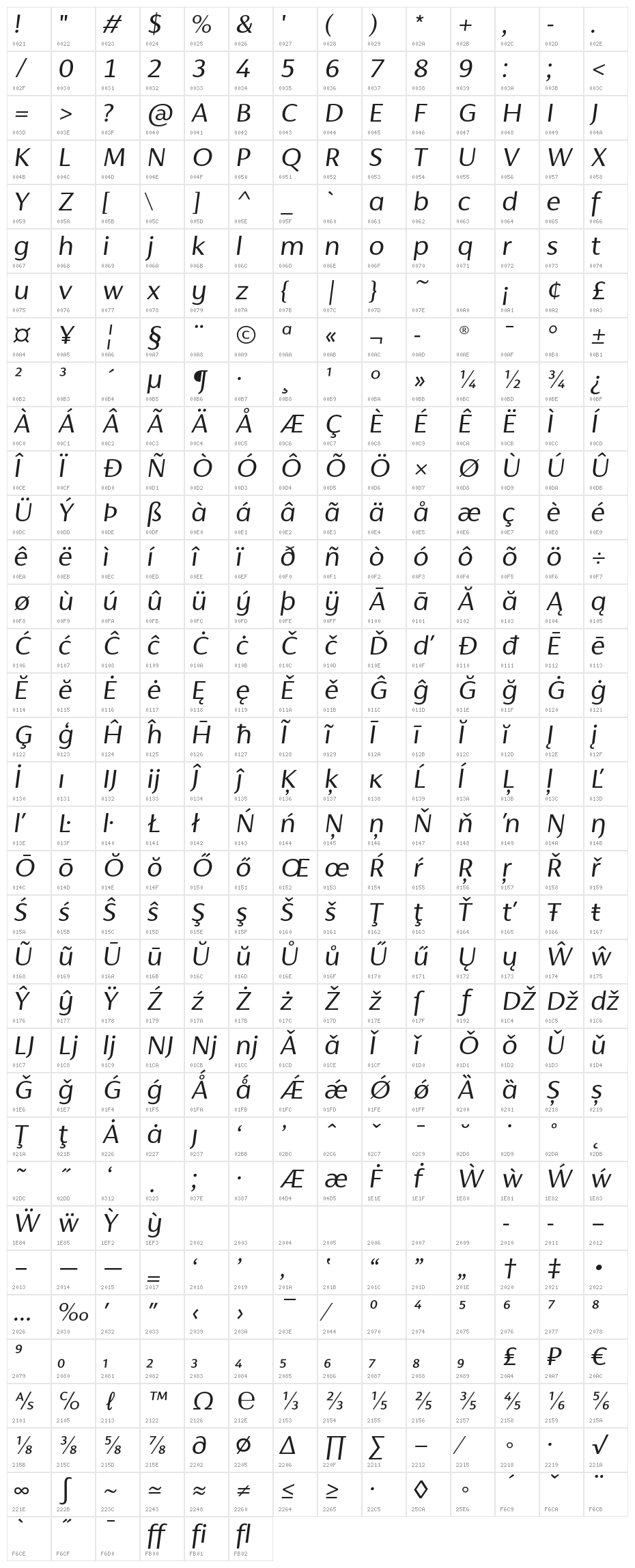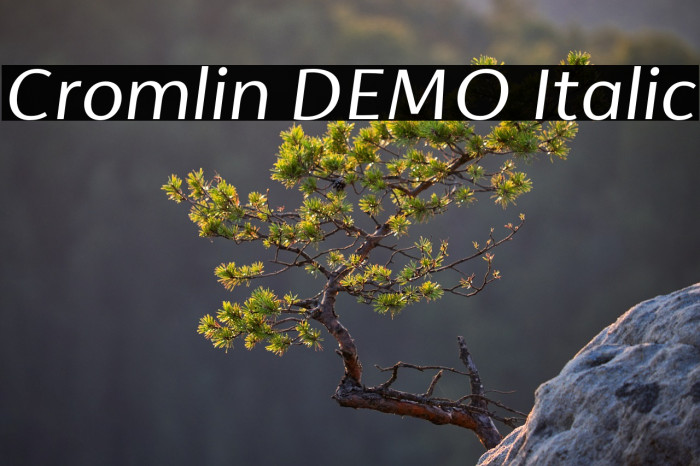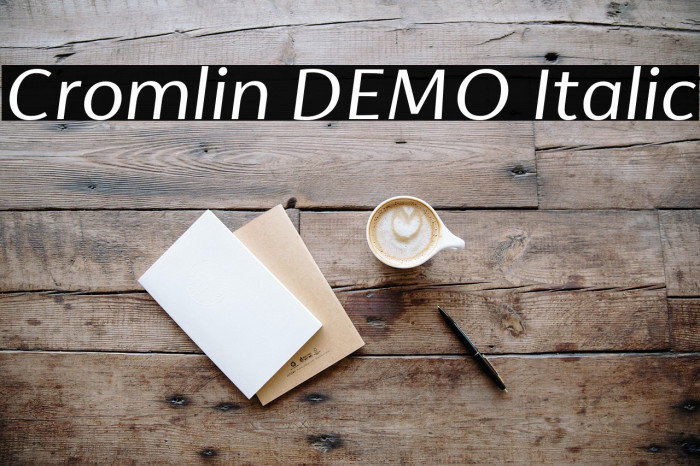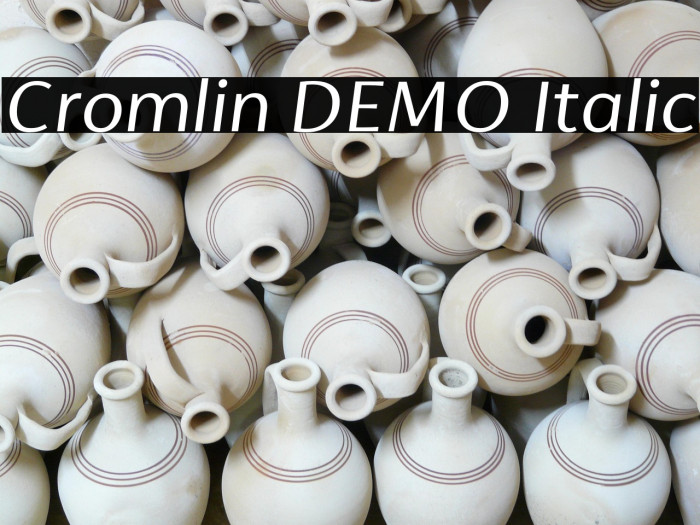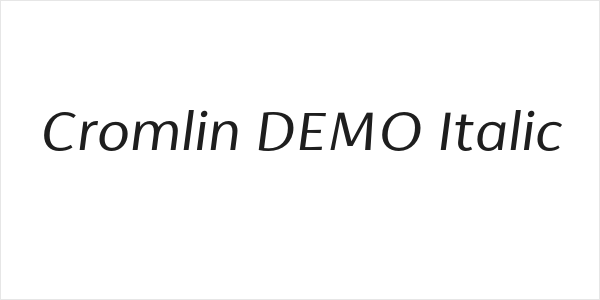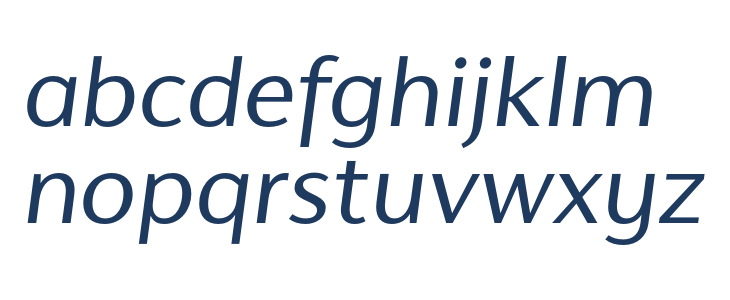
Cromlin DEMO Italic Font
Cromlin DEMO Italic Description
This font features a sleek and modern design with a slight italic slant, giving it a dynamic and forward-moving appearance. The characters are well-proportioned with a clean and smooth finish, making it highly legible. The uppercase letters are bold and assertive, while the lowercase letters maintain a consistent flow. The numerals are clear and distinct, ensuring readability in various contexts. The special characters are crafted with precision, adding to the font's versatility. Overall, this font exudes a professional and contemporary vibe, suitable for a wide range of applications.